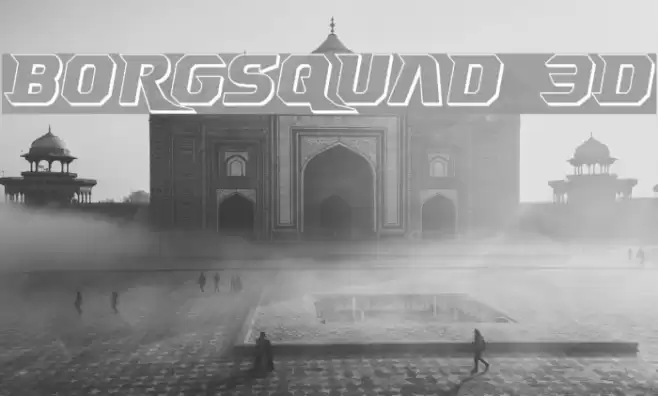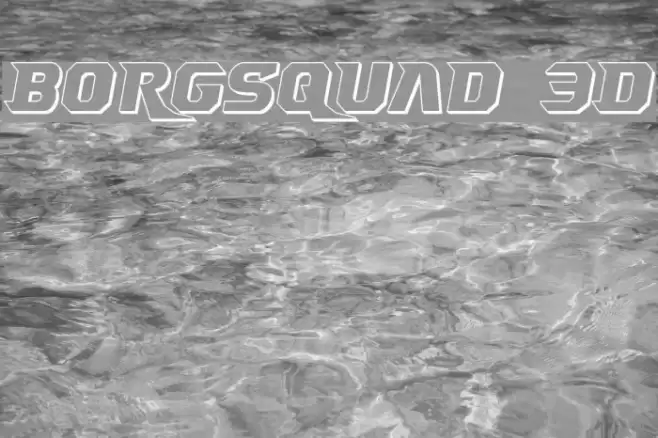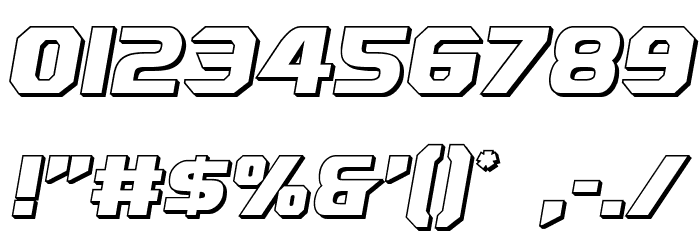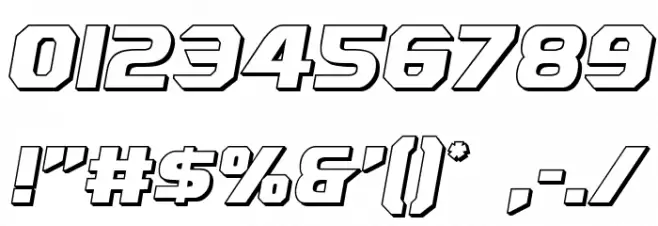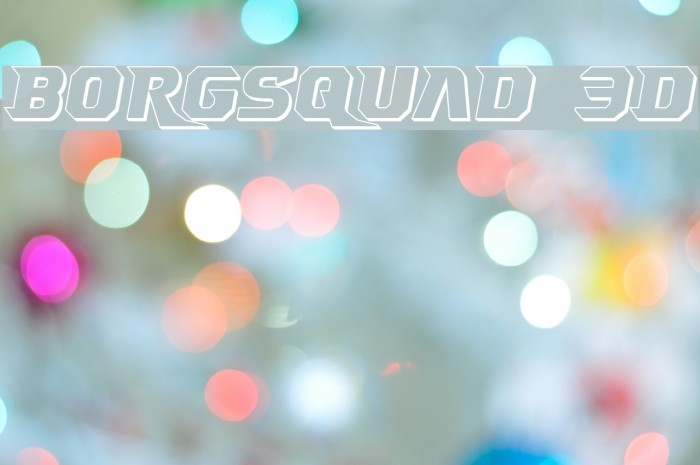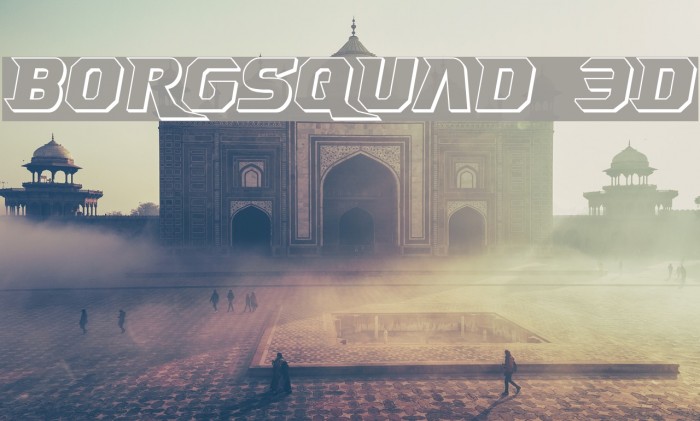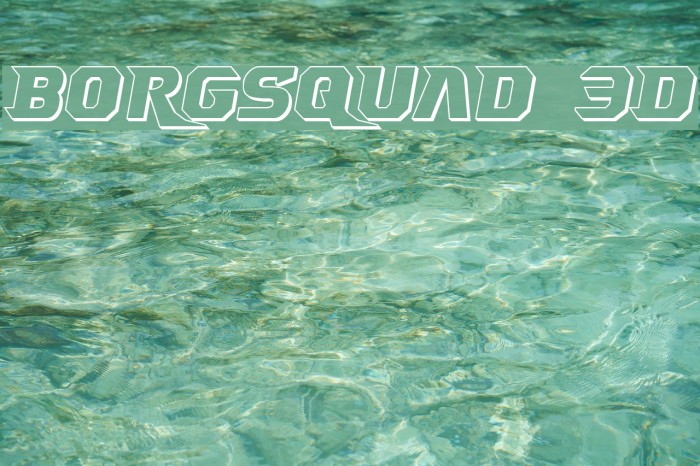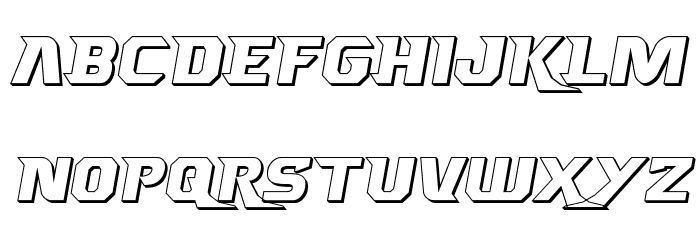
Borgsquad 3D
This font features a bold, three-dimensional style with a futuristic and dynamic appearance. The letters are outlined with a shadow effect that gives them a sense of depth and movement. The angular and geometric shapes of the characters convey a modern and edgy feel, making it ideal for projects that require a strong visual impact. The uppercase and lowercase letters maintain a consistent style, and the numerals and special characters are designed to match the overall aesthetic. This font is perfect for creating eye-catching headlines, posters, and branding materials that need to stand out.
A bold, 3D font with a futuristic and dynamic style.
- Proposed Projects: Ideal for headlines, posters, branding, and any project needing a strong visual impact.
- Contrast: High
- Use Case: Headlines, Logos, Posters